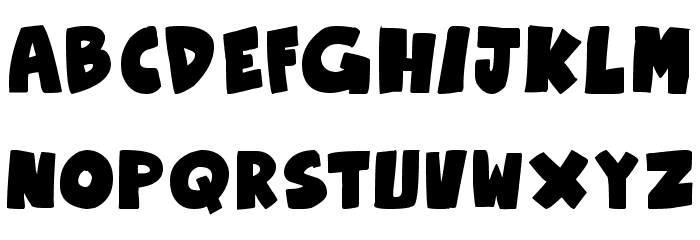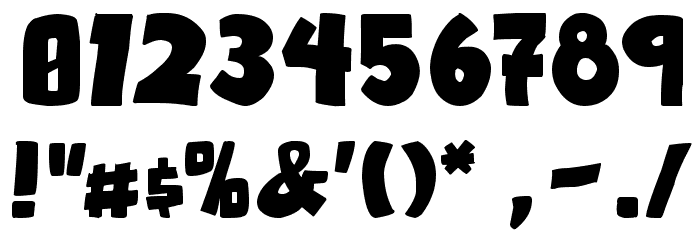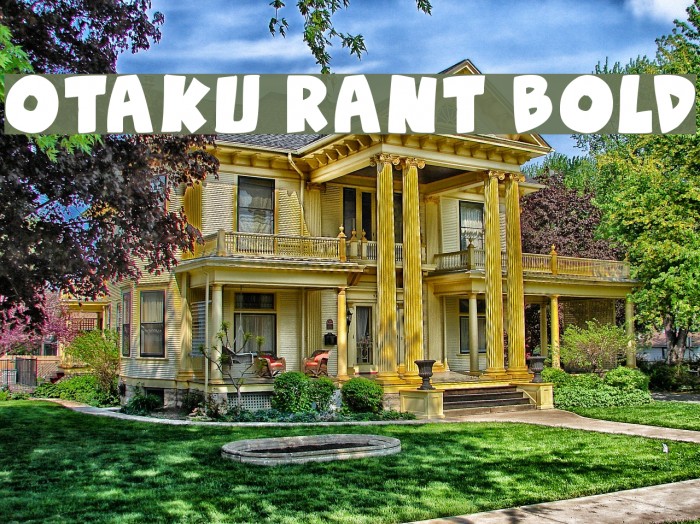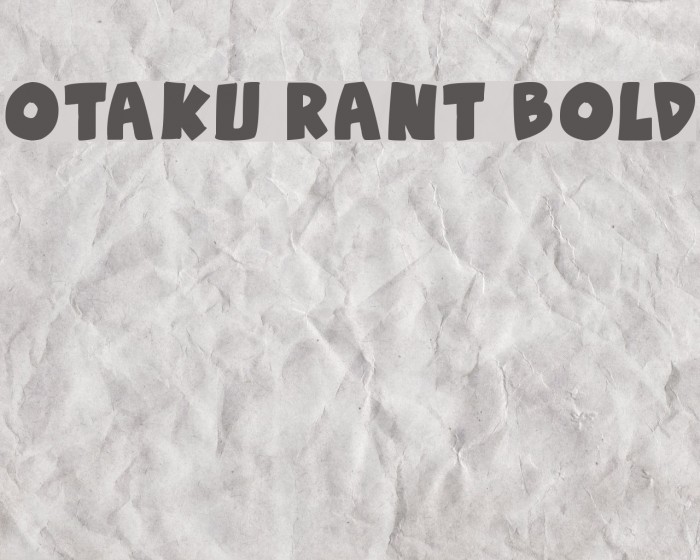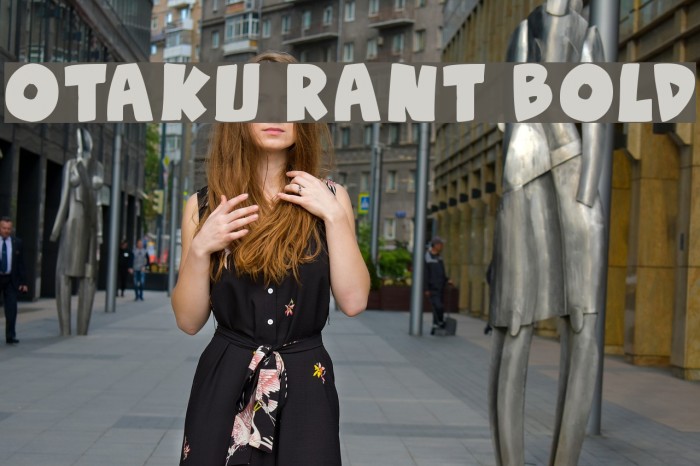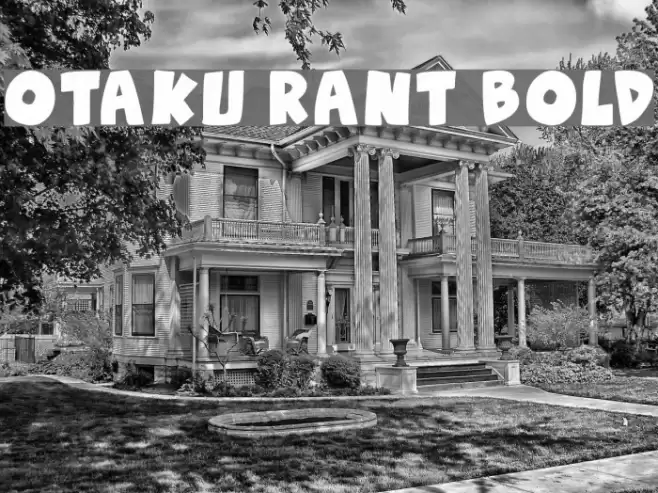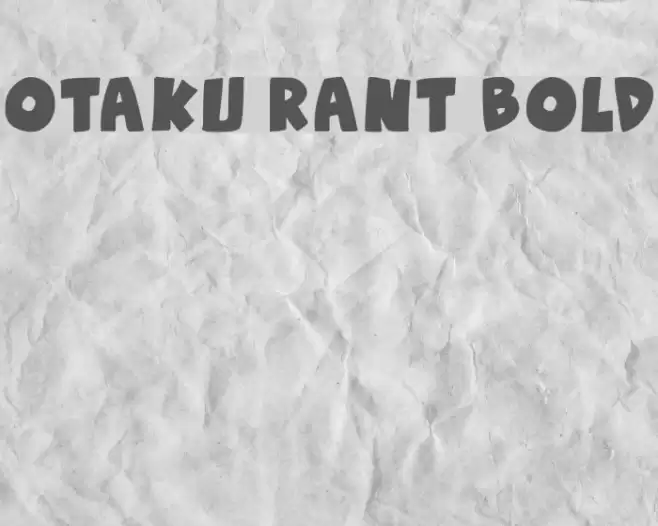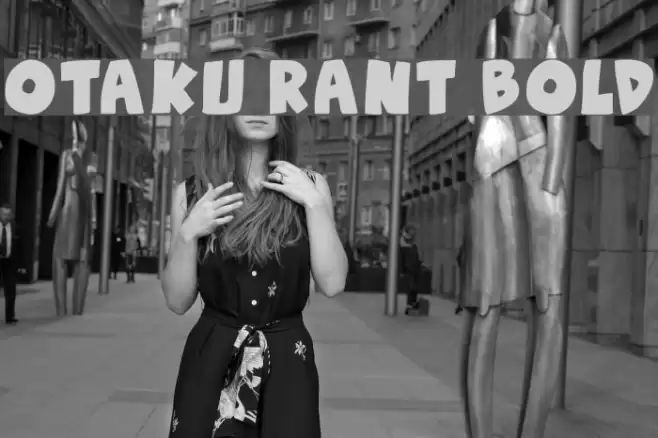
Otaku Rant Bold Font
This bold, playful font features thick, rounded letters with a slightly irregular shape, giving it a whimsical and energetic feel. The characters are bold and substantial, with a cartoonish style that makes them stand out. The uppercase and lowercase letters maintain a consistent weight, while the numbers and special characters complement the overall design with their chunky and dynamic appearance. This font is ideal for projects that require a fun and engaging visual impact.
A bold, playful font with thick, rounded, and slightly irregular characters.
- Proposed Projects: Perfect for children's books, comic strips, playful branding, and eye-catching posters.
- Overall Style: Playful, Cartoonish